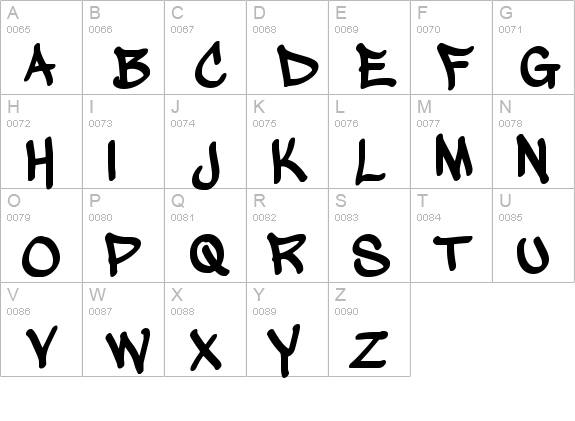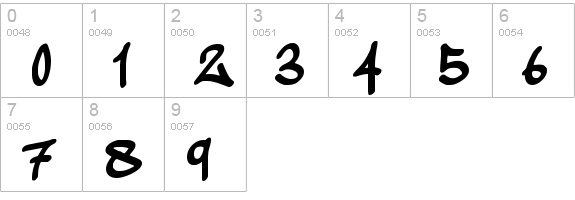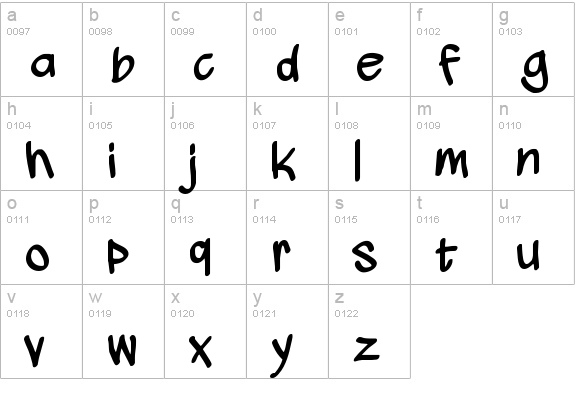
Introducing Wickhop Handwriting Font, a stunningly unique and versatile typeface that will bring a touch of elegance to any design project. With its graceful strokes and charming irregularities, Wickhop captures the essence of handwritten script, making it the perfect choice for invitations, branding, logos, and more. What sets Wickhop apart is not only its exquisite design but also its accessibility. This font is available for free, allowing designers of all levels to add a touch of sophistication to their creations without breaking the bank. Simply head over to FontsMarket.com to download Wickhop and start experimenting with its endless possibilities. Whether you're creating wedding invitations that exude romance, crafting a logo that reflects authenticity, or designing an elegant packaging for a luxury product, Wickhop will effortlessly elevate your work. Its flowing lines and delicate curves evoke a sense of warmth and human touch, making it the ideal choice for projects that require a personal and intimate feel. The versatility of Wickhop is further enhanced by its extensive character set, including ligatures and alternate characters, giving you the freedom to customize your designs and make them truly unique. Let your creativity flow as you mix and match the various glyphs, creating captivating layouts that leave a lasting impression. Wickhop Handwriting Font is not just a typeface; it's a tool that empowers designers to bring their visions to life. Its timeless beauty and accessibility make it a must-have in any designer's toolkit. So why wait? Download Wickhop for free at FontsMarket.com and unleash your creativity today.